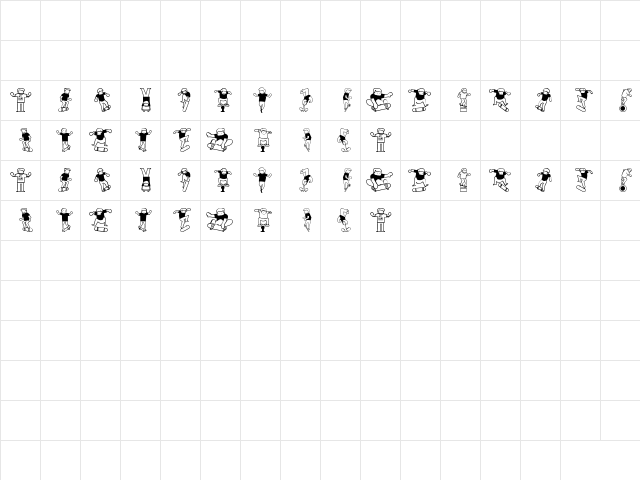
Rodney Mullen King Regular
Design Context for Rodney Mullen King Typeface
Rodney Mullen King is a composed and adaptable typeface that performs quietly and consistently across a wide range of design contexts.